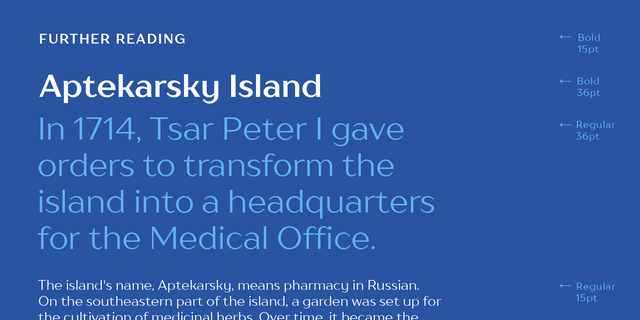
About TT DrugsFontfamily Drugs — fonts that are specifically designed for the pharmaceutical industry and for household chemicals. Than to make a text layout for package of any medicine, toothpaste or laundry detergent? The answer is — Drugs. Fontfamily has a range from thin to black font and can be used on any surface: paper, cardboard, metal, glass and others. Typeface designed in TypeType studio in 2014.
Associations for font family TT DrugsTypeface personality and character:
delicate, clean, easy, thin, chilly, fresh, modern, laconic, clear, flat, high-quality, weightless, transparent, urban, accurate, minimalistic, crisp, intimate, fragile, logical, air, glass, sharp, simple, business, neutral, static, strict, solid, available, elementary, correct, serious, stable, independent, responsible, west, calm, low key, optimal, convincing, cold, reliable, important, reputable, strong, motivating, authoritative
diet, city, health, hygiene, purity, science, medicine, water, device, tool, innovations, chemistry, mathematics, technology, sky, medicines, Toothpaste, pharmacy, equipment, industry Typeface associated with age: